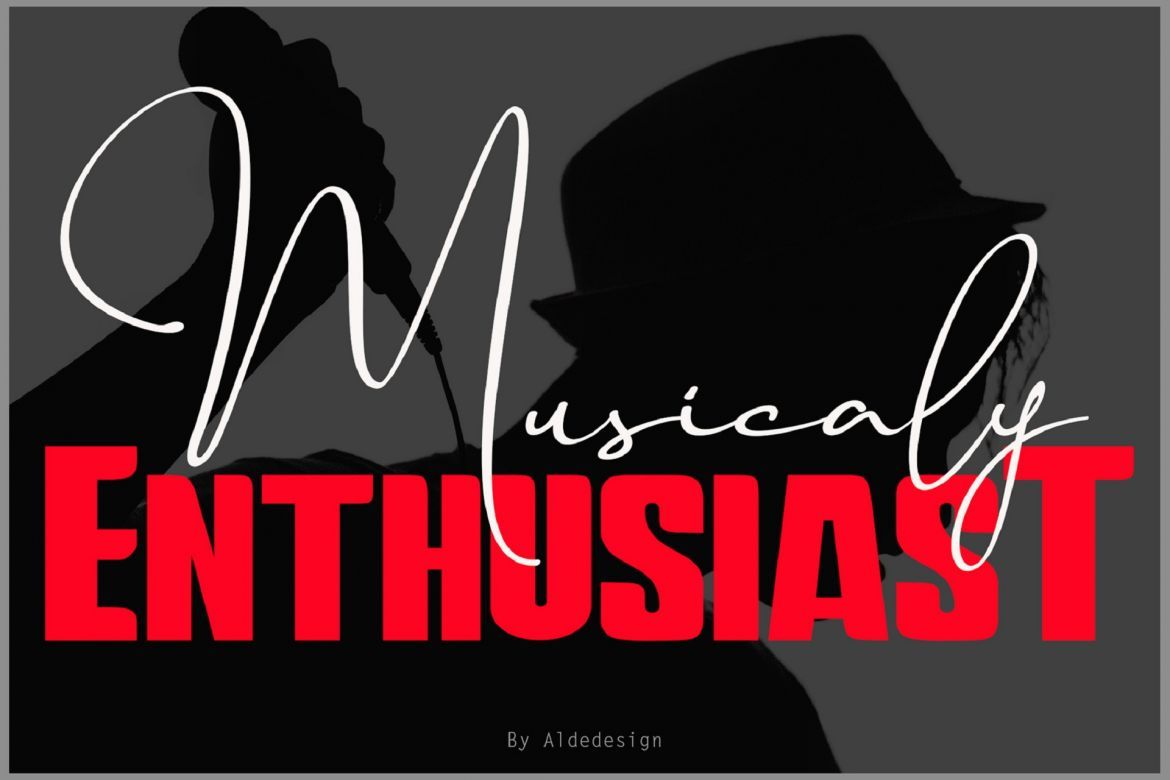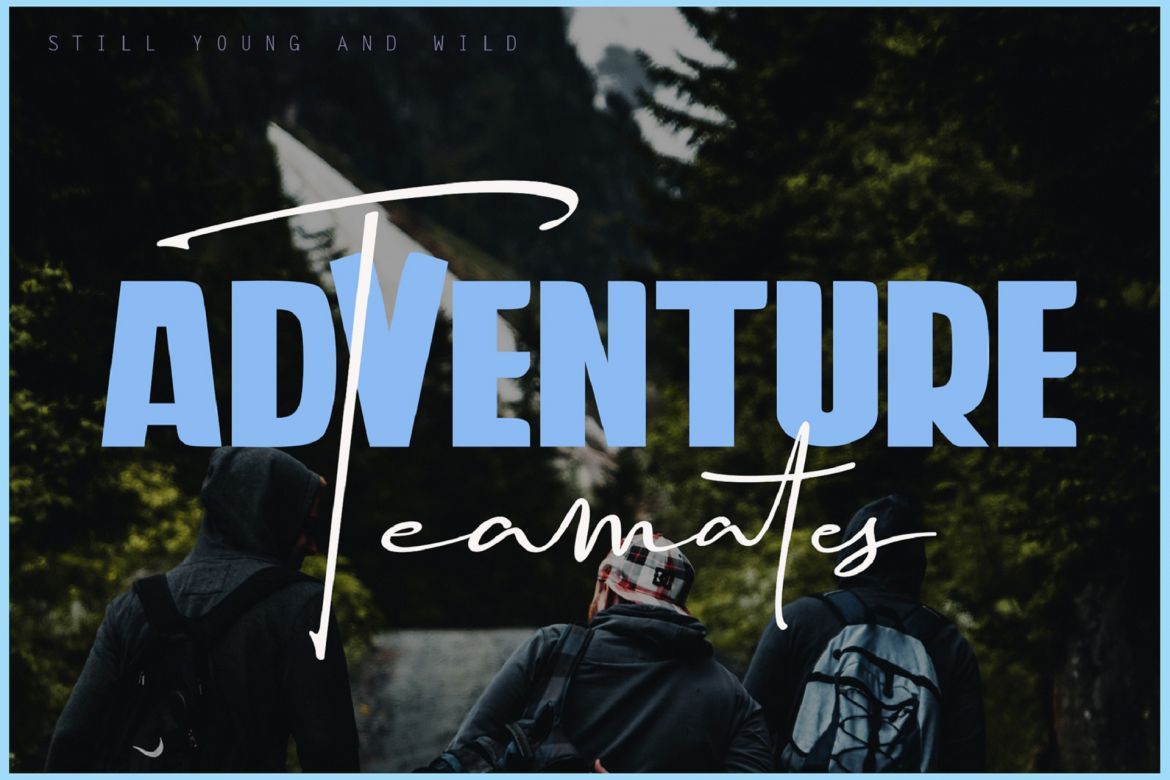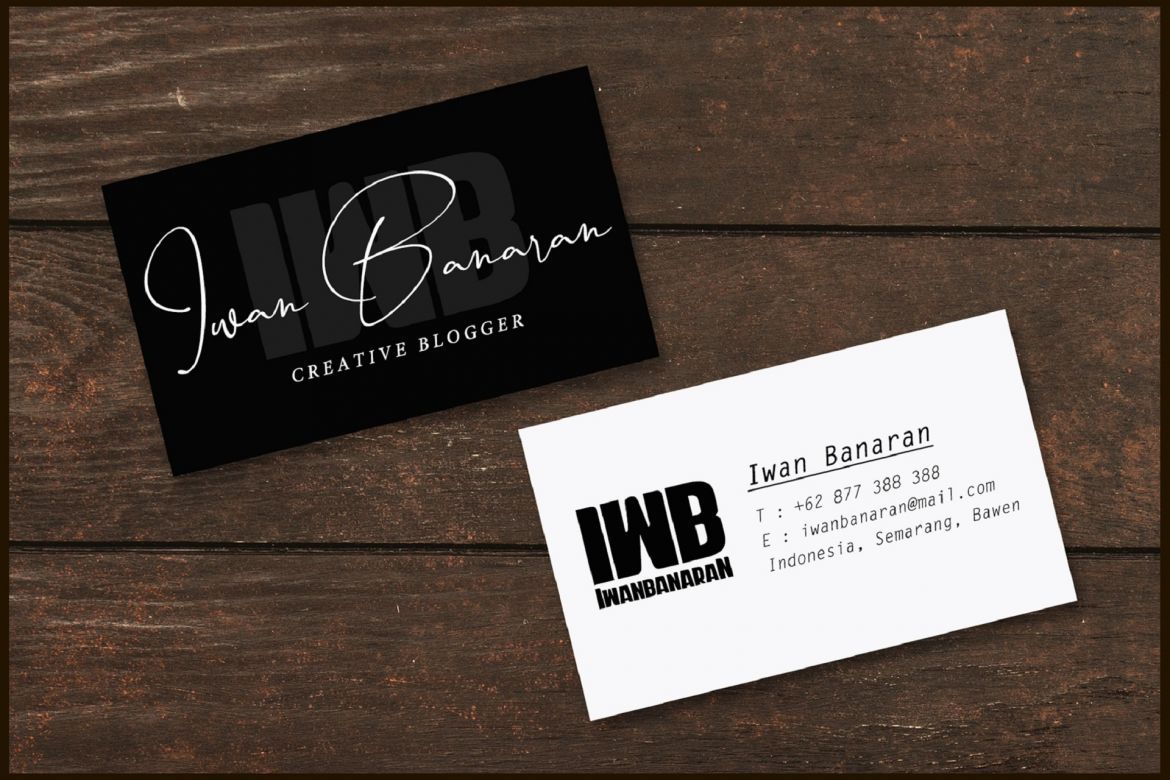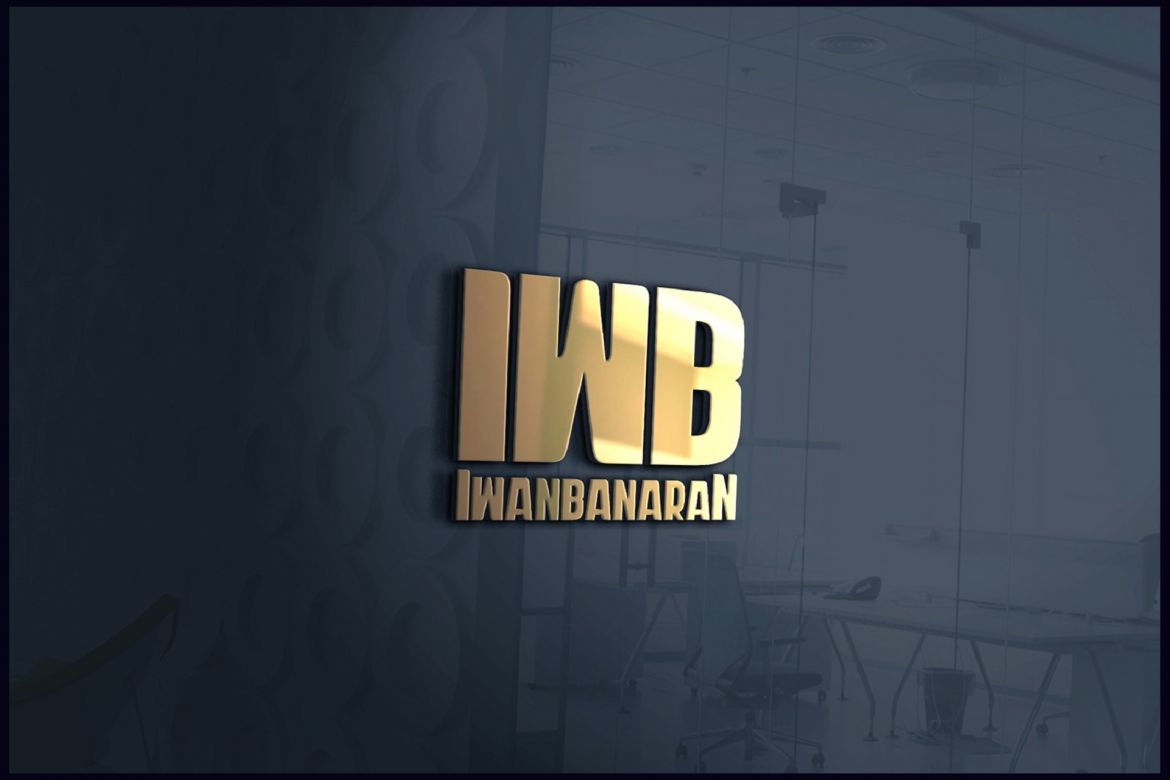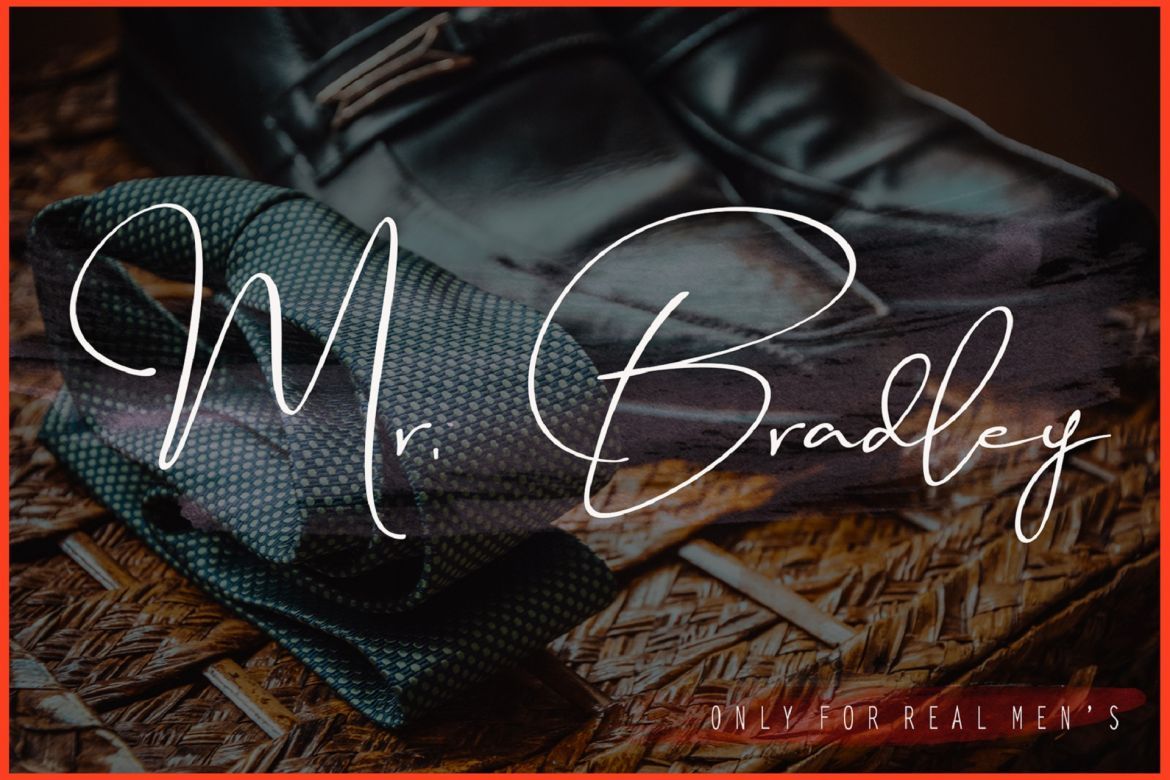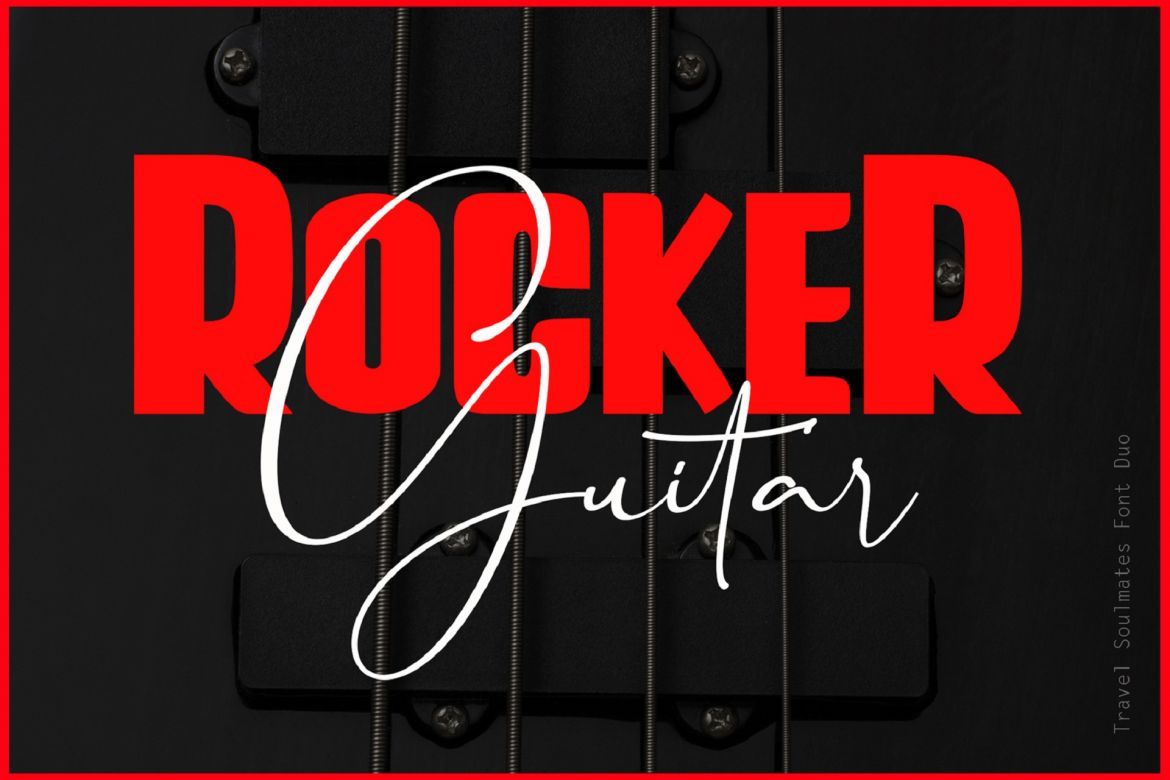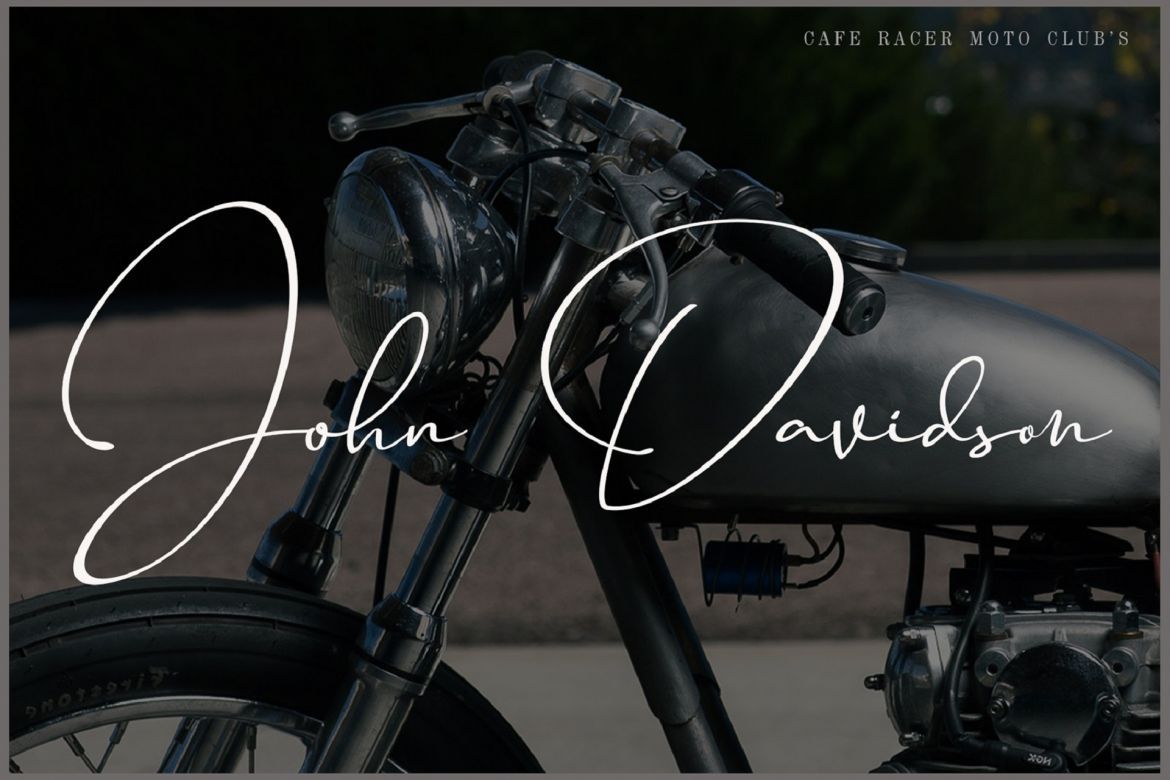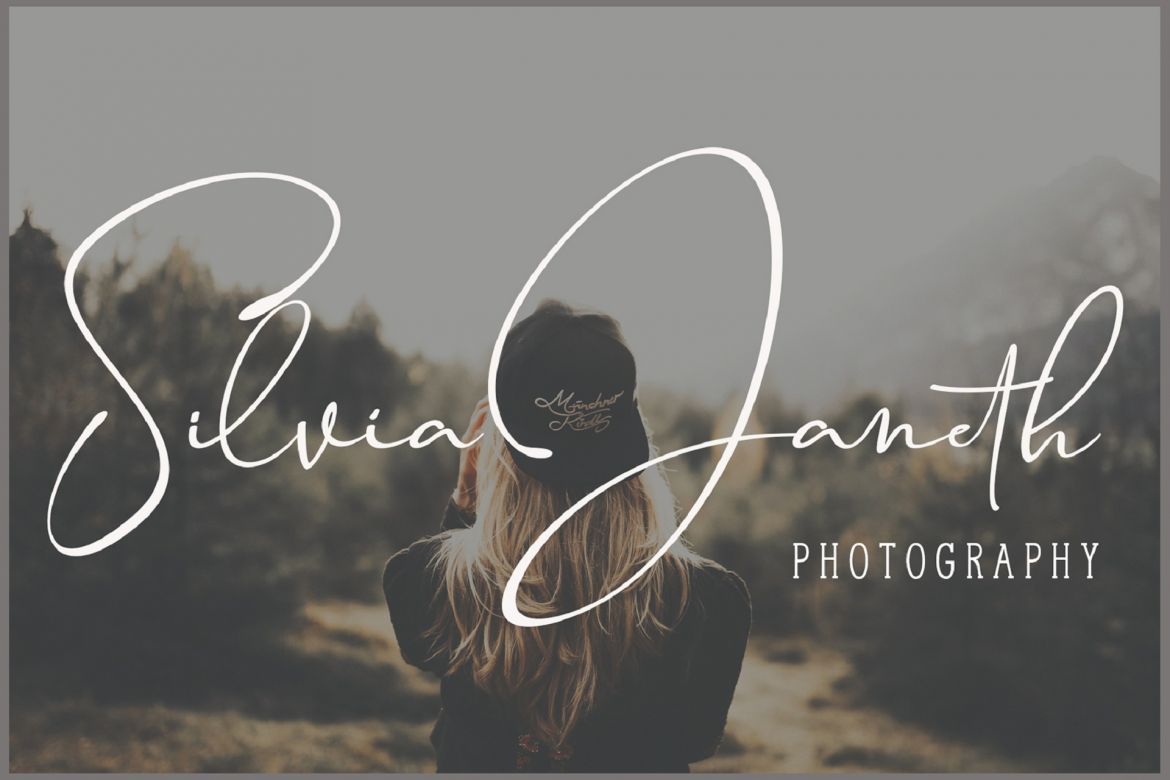
Travel Soulmates - Font Duo
Travel Soulmates - Font Duo is a font with simple and classy taste, comes with signature and Weight (bold sans) variations, opentype features such as ligatures. We keep this font looks classy, readable, elegant, stylish, catchy and absolutly easy to use.
Travel Soulmates is the great choice for watermark on photography, signature or signature logo design, album cover, business card, quotes, and many other design project.
• each font has: stylish handwritten style, beautiful swash (ending tail), beautiful titling (beginning tail), special ligatures, multilingual support